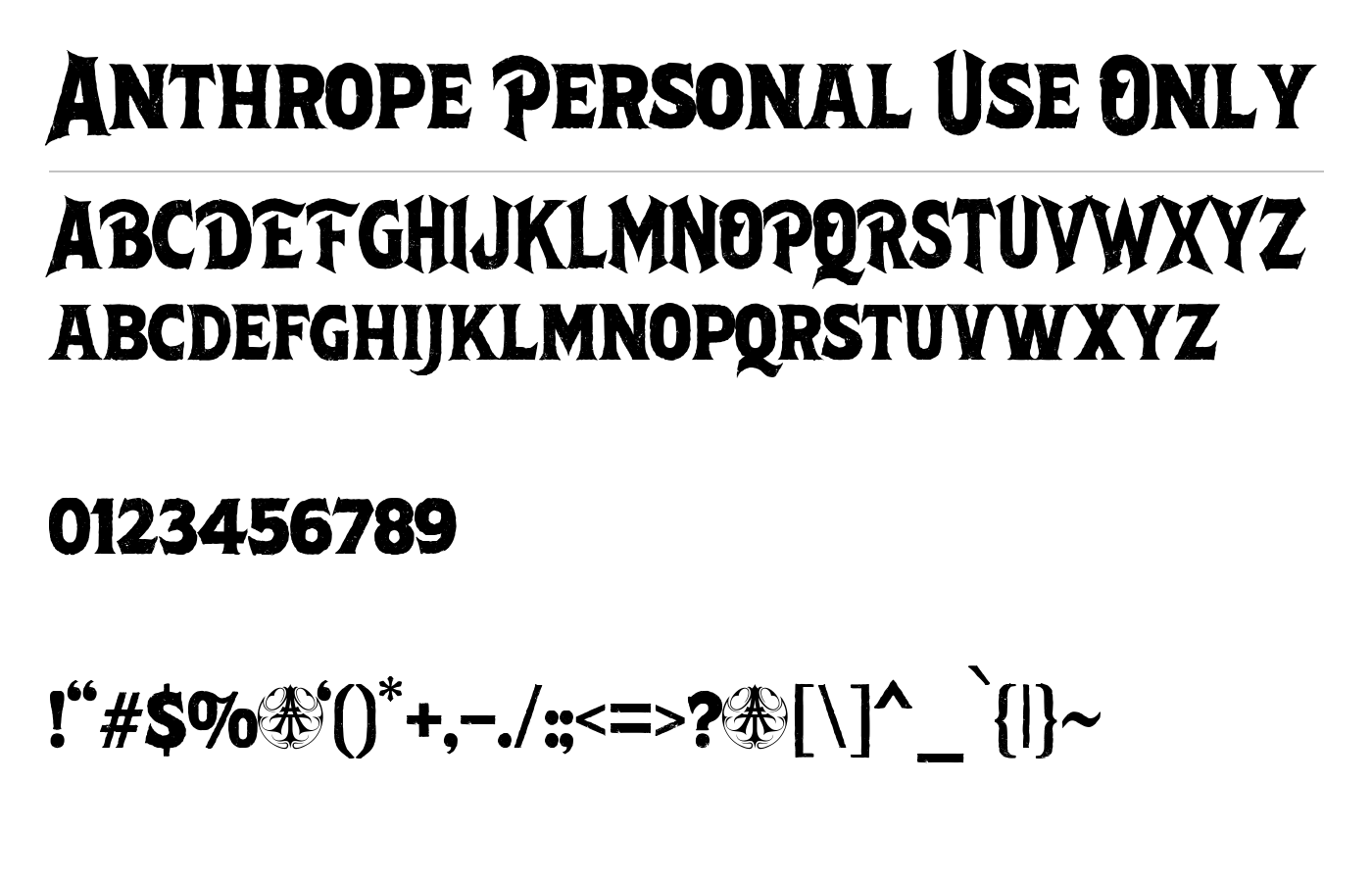
Anthrope Personal Use Only is a bold serif typeface with strong, slightly condensed letterforms and a handcrafted, vintage feel. Its high contrast strokes, sharp serifs, and textured appearance give it an adventurous and rugged personality, making it a great choice for headlines, logos, and branding that aim to evoke a sense of tradition and bold character. This font works well in creative projects that want to stand out with a unique, spirited style.
| Font family | Anthrope Personal Use Only Font |
| Designer | TypeAliens |